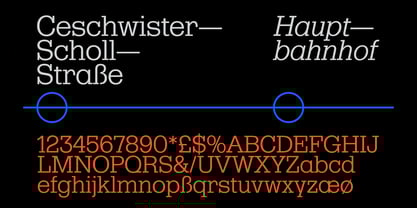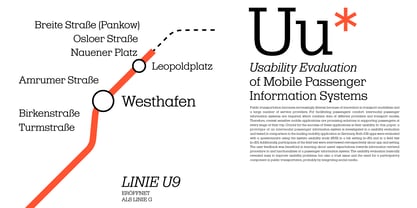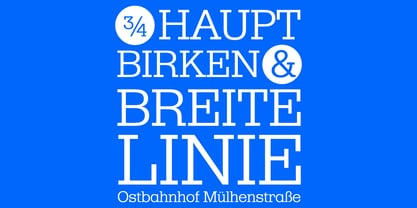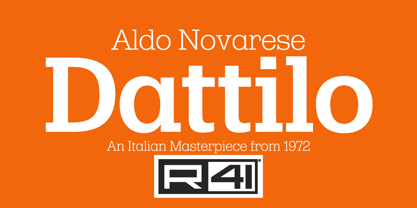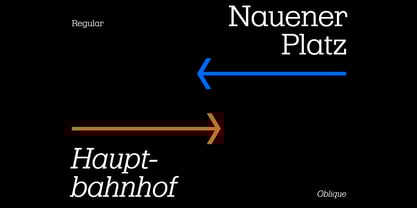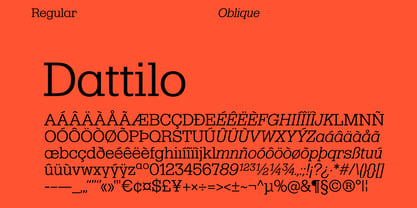
R41 Dattilo
The R41 Dattilo Font Family was designed by Aldo Novarese, Fulvio Bisca, Cosimo Lorenzo Pancini, Mario De Libero and published by Reber R41. R41 Dattilo contains 14 styles and family package options. More about this family
Like others before him, Aldo Novarese formulated a classification of fonts, dividing them into ten families, including the Egyptians. Graceful and thick, the Egyptian, or slab serif, was born at the end of the nineteenth century and is perfect for advertising, which began to develop precisely at that time. Dattilo was designed from this matrix: a revival of the classic typewriter in a contemporary key, in line with the growing success of modern sans serifs without betraying their original elegance.
Designers: Aldo Novarese, Fulvio Bisca, Cosimo Lorenzo Pancini, Mario De Libero
Foundry: Reber R41